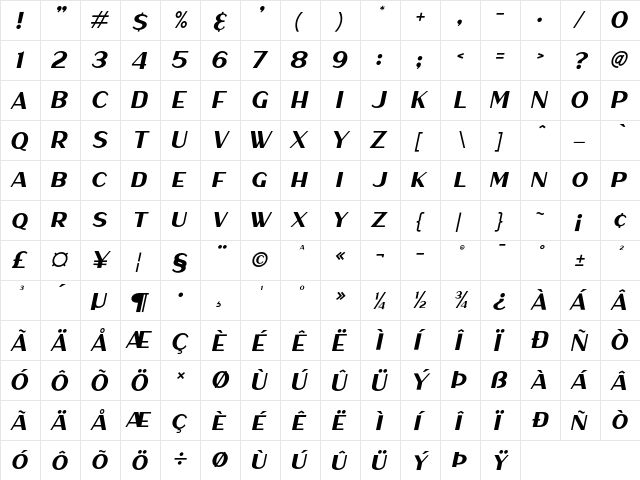
Haarlem Sans Italic
Design Context for Haarlem Sans Typeface
Haarlem Sans takes a measured approach to typography — its balanced proportions and neutral character make it a reliable workhorse for both digital and print work. Its italic angle brings a sense of urgency and motion to the letterforms.
Pro Tip: Try Haarlem Sans for annotation and caption copy alongside an upright companion — the contrast in angle creates a dynamic but ordered typographic system.